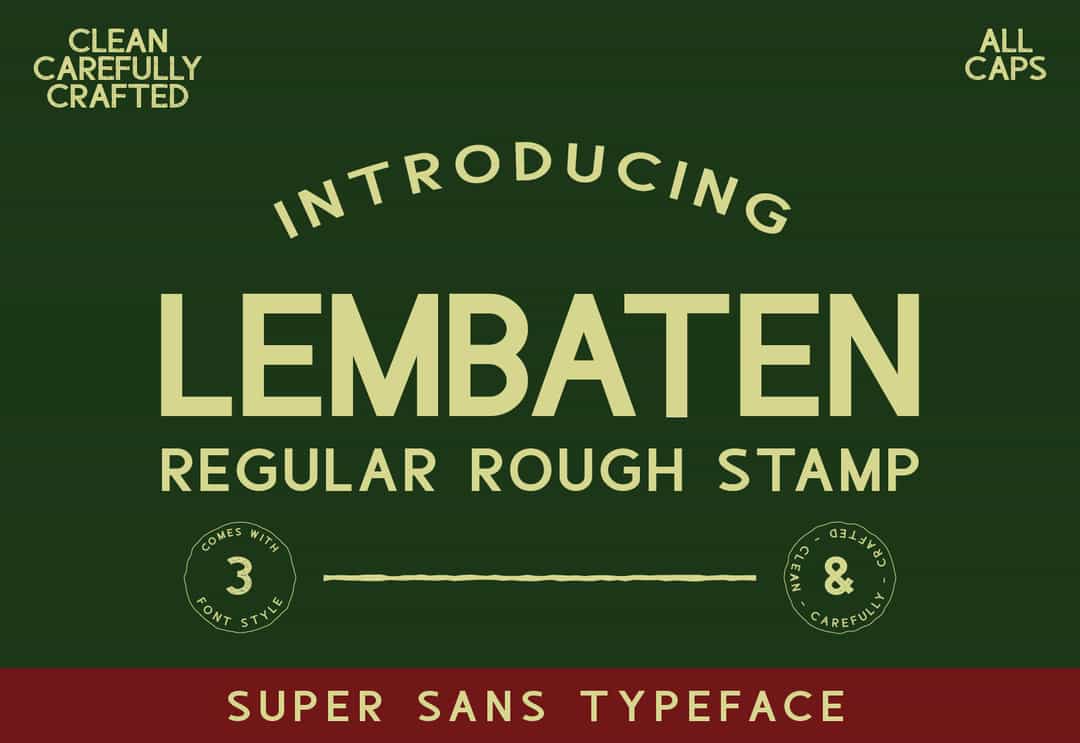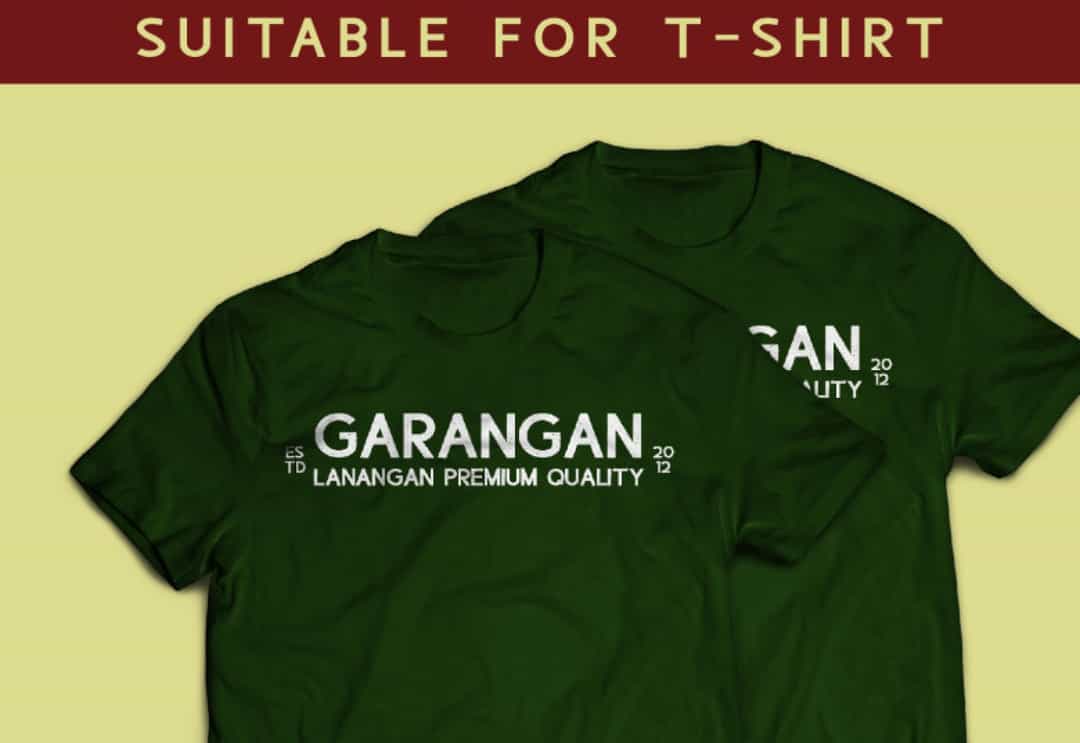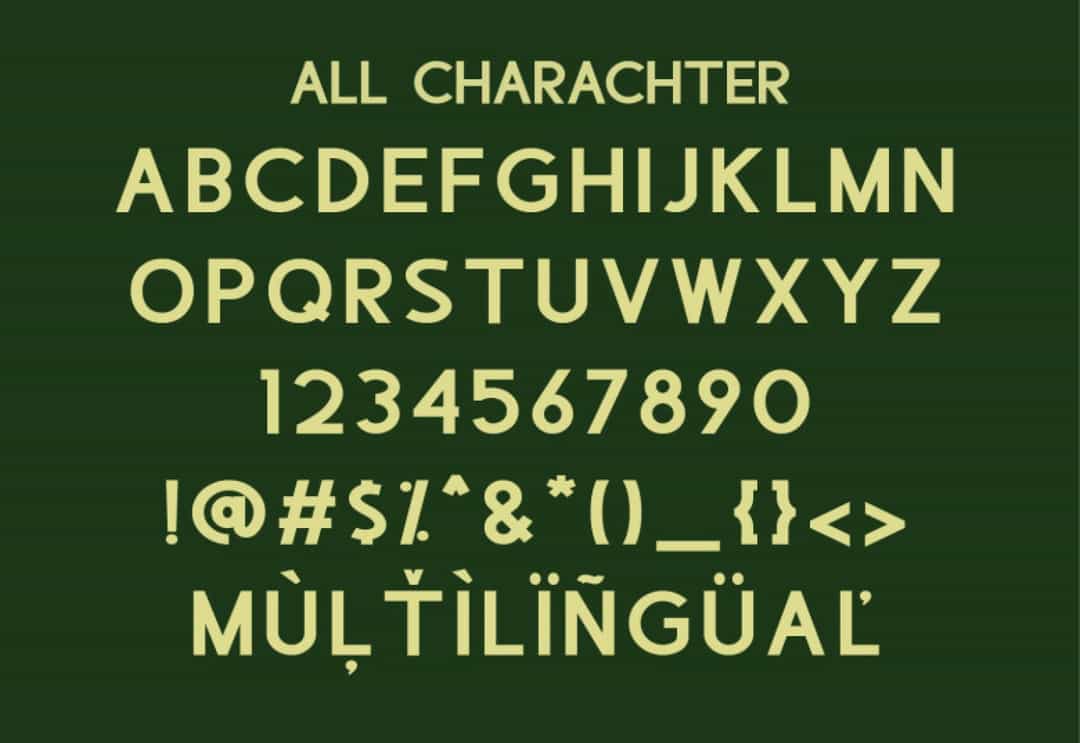
Lembaten Font is an exquisite yet timeless sans-serif font, suitable for a range of designs. Include it in your creative ventures to watch how they flourish!